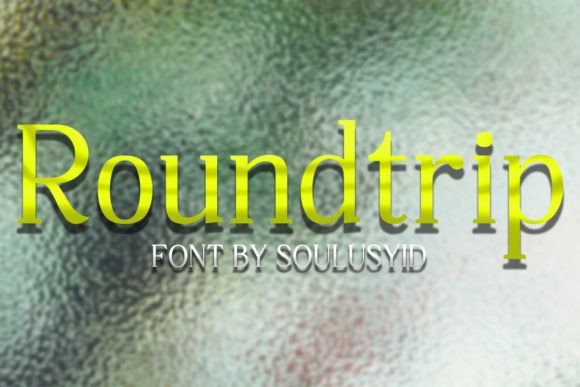
Welcome to the realm of Roundtrip, a serif font that dances with timeless elegance and a touch of whimsy. Every curve and line in this font has been meticulously crafted, like a master calligrapher's stroke, to bring life to your creative ideas.
Meet Roundtrip, the font that whispers enchantment into your designs. Each letter is a work of art, with delicate serifs that lend an air of sophistication and charm. It's a font that evokes nostalgia, like a handwritten love letter penned with care.
Roundtrip is the perfect companion for your heartfelt projects. Use it to create baby onesies that speak of innocence and joy, branding that exudes warmth and approachability, or social media posts that capture the attention of your audience.
With Roundtrip, your designs will blossom with a unique personality, leaving an imprint on the hearts of those who behold them. It's a font that speaks volumes, even in silence, evoking emotions and creating lasting connections.
Roundtrip is your key to unlocking a world of creative possibilities. Let it be your muse, your ally in crafting designs that resonate with your audience and leave a lasting impression.